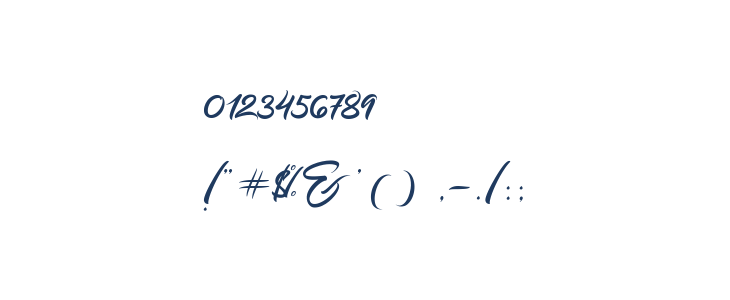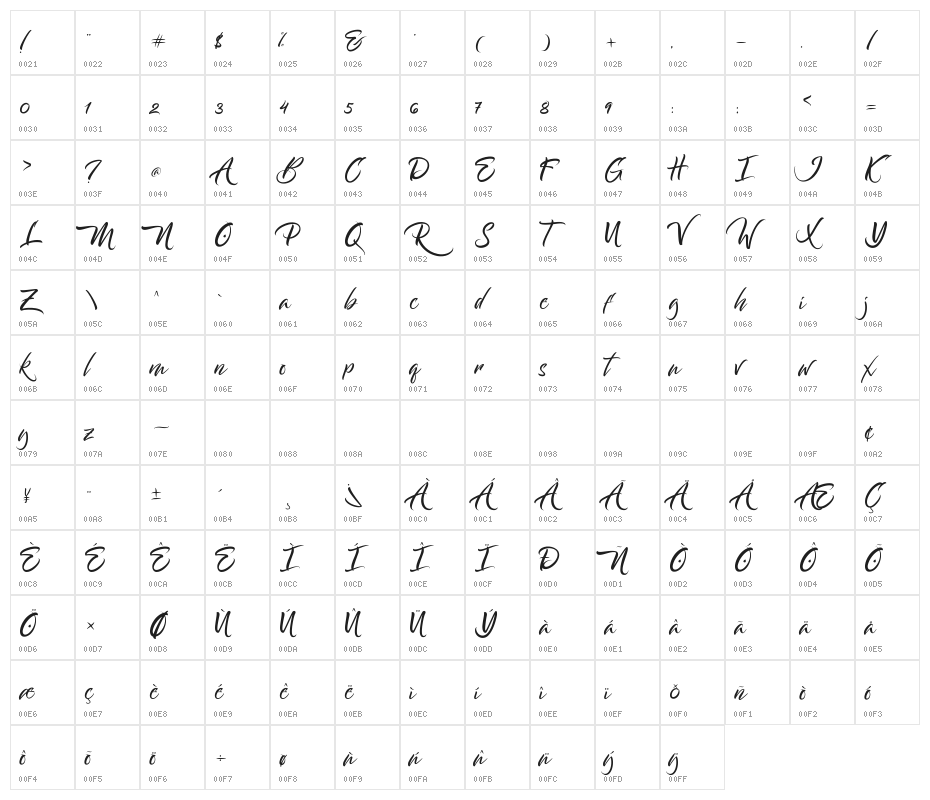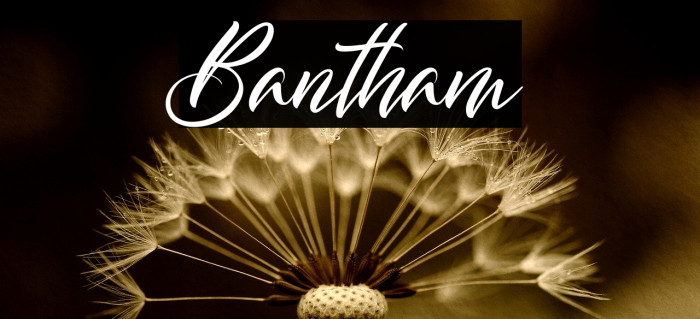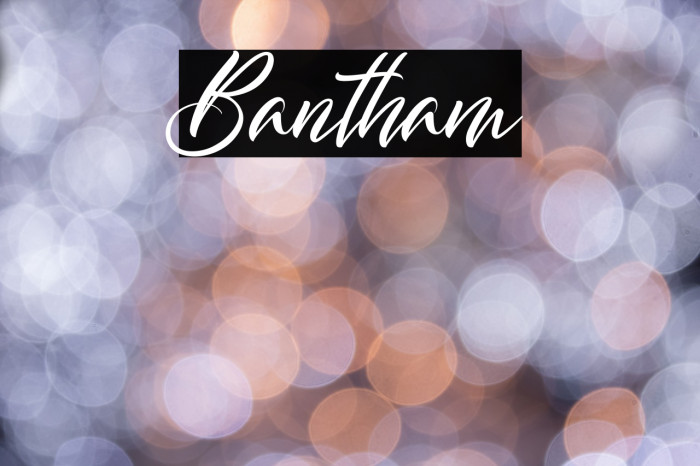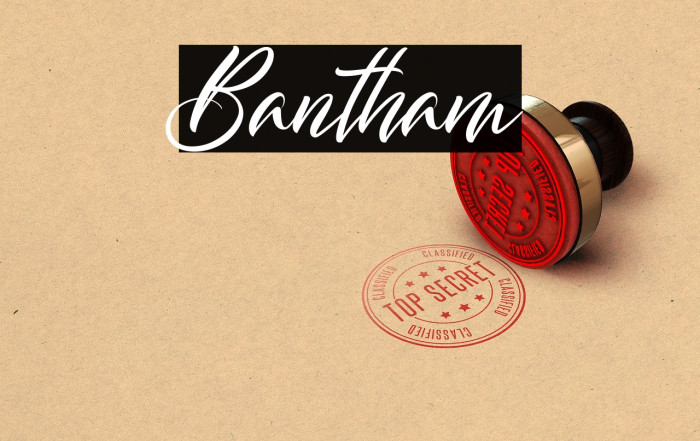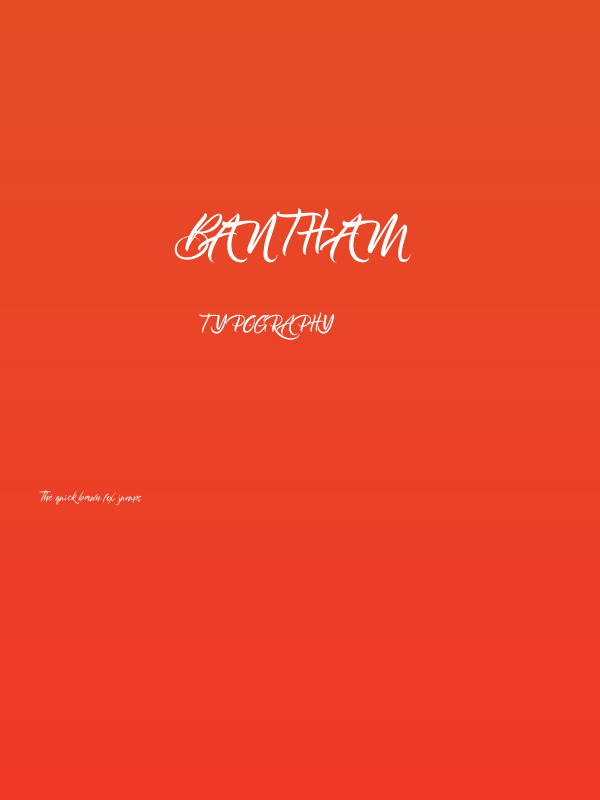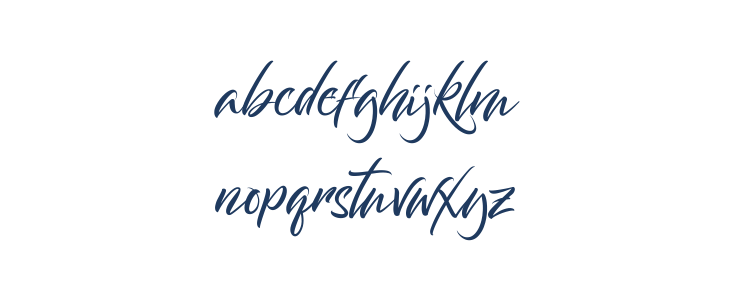
Bantham Font
Bantham Description
This font features an elegant and flowing script style, characterized by its smooth, cursive strokes and a dynamic sense of movement. The uppercase letters are bold and sweeping, with distinctive flourishes that add a touch of sophistication. The lowercase letters maintain a consistent fluidity, enhancing readability while preserving the artistic flair. Numbers and special characters are crafted with the same attention to detail, ensuring a cohesive look across all elements. The overall design is both expressive and refined, making it suitable for projects that require a personal touch.
| Overall Style | Elegant, Artistic |
| Use Case | Logos, Invitations, Branding |
| Proposed Projects | Ideal for wedding invitations, elegant branding, personal stationery, and artistic projects. |